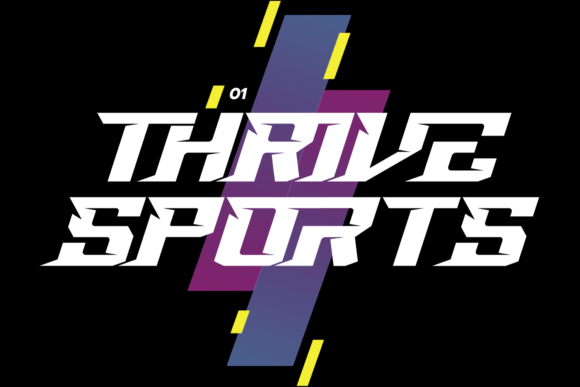
Introducing Thrive Sports Font, the ultimate choice for sports enthusiasts and designers alike! This sans serif font is not your ordinary sports font. It embraces a fresh style, modern cutouts, and a dynamic tilt that will instantly captivate your audience.
With its wide italic fonts and sleek design, Thrive Sports Font is the perfect companion for any fast-paced sports event. Whether you're creating titles for car racing, running matches, or cycling competitions, this font will bring your designs to life with its energetic and powerful vibe.
Designed by the talented team at 177Studio, Thrive Sports Font is packed with OpenType features that will take your creativity to new heights. It includes a whopping 100 ligatures, alternate characters, numbers, and punctuation, allowing you to customize your designs with ease.
But that's not all - Thrive Sports Font goes beyond the boundaries of language. It supports multiple languages, making it accessible to a global audience. So, whether you're targeting local sports teams or international automotive game logos, this font has got you covered.
Why settle for ordinary when you can stand out with Thrive Sports Font? Its captivating style and modern cutouts will make your designs pop, leaving a lasting impression on your audience. Let your creativity thrive and make a bold statement with this font that screams power, speed, and excitement.